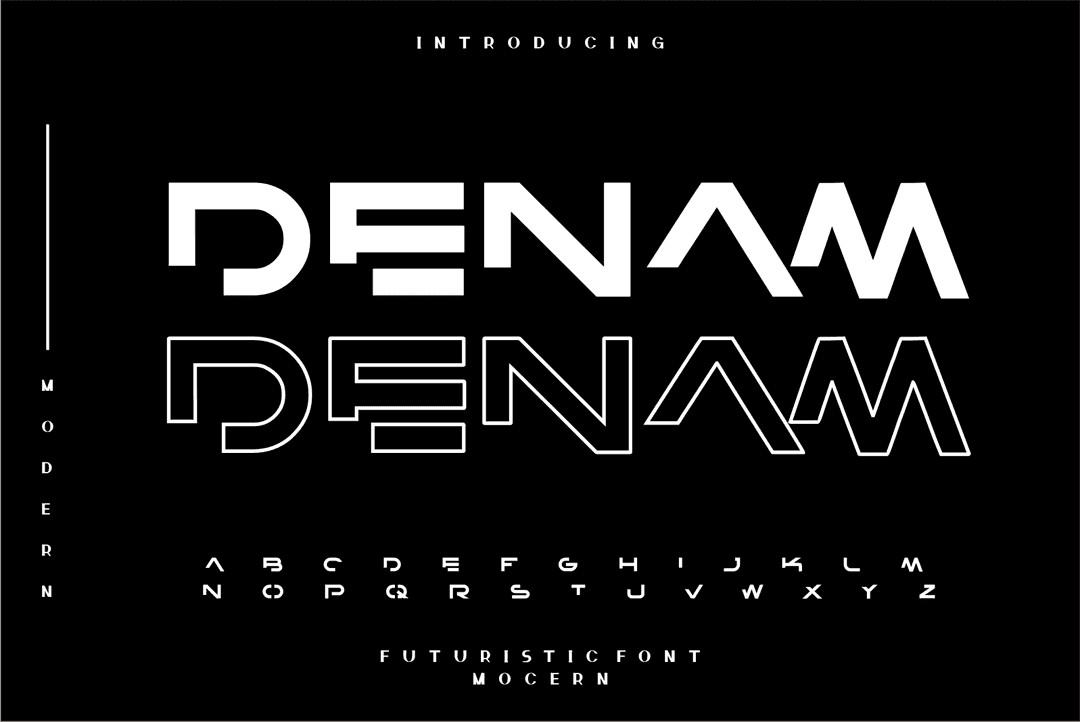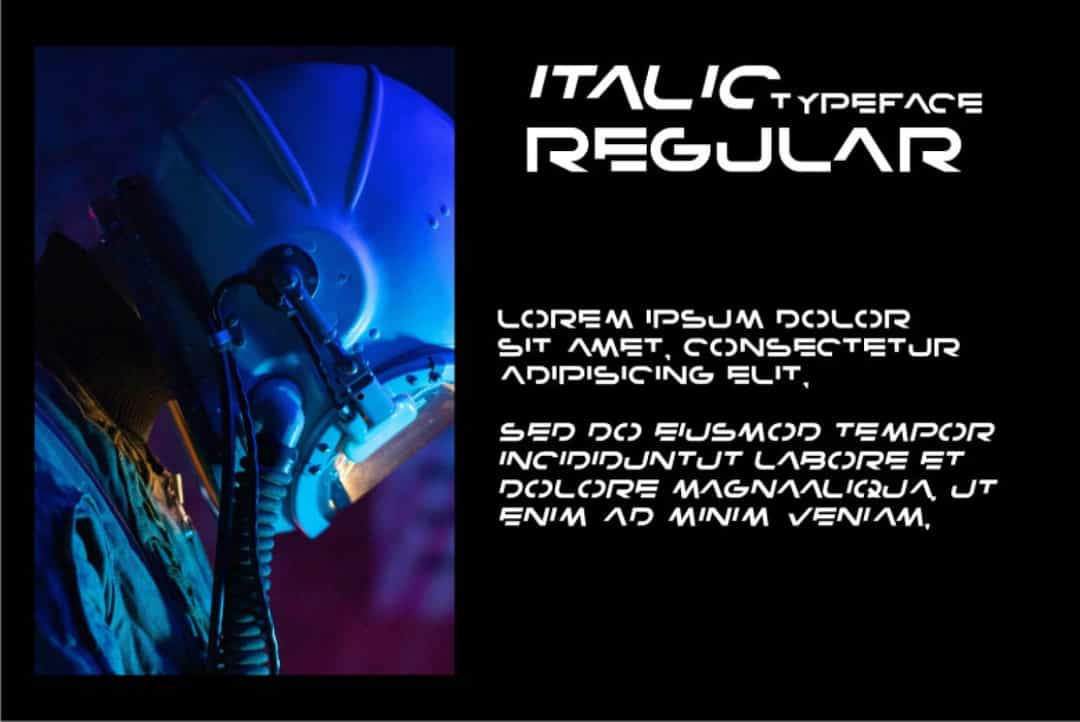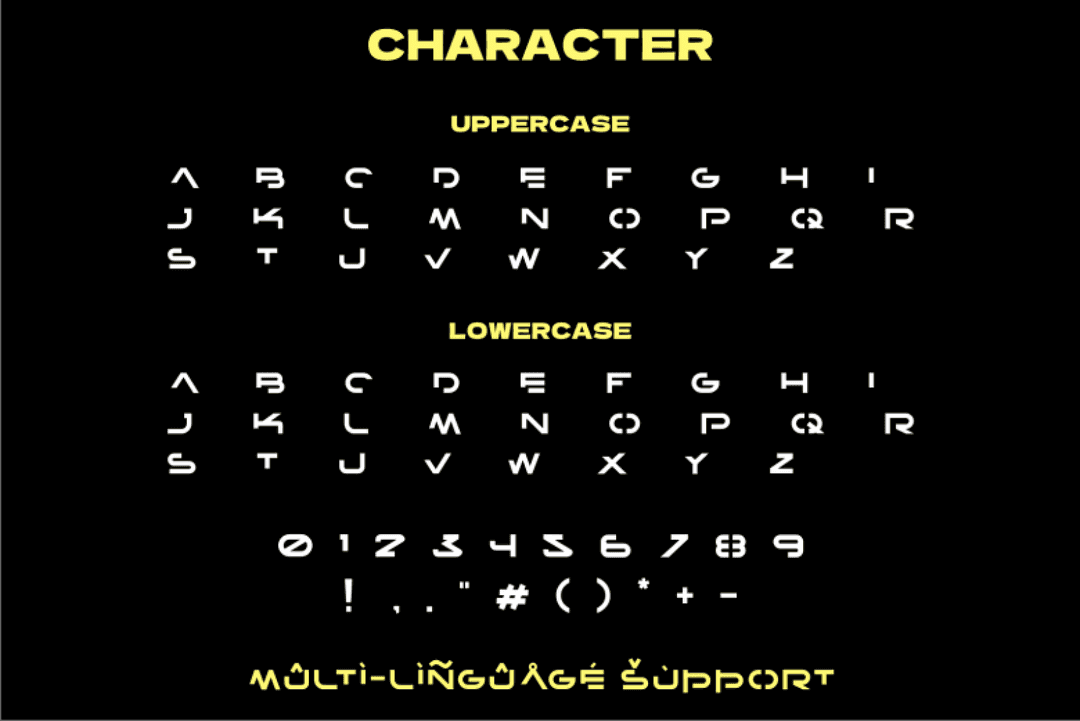
Denam Font is a stylish and robot-inspired display font. Perfect for web design and business cards, but also ideal for creating futuristic effects in other projects.